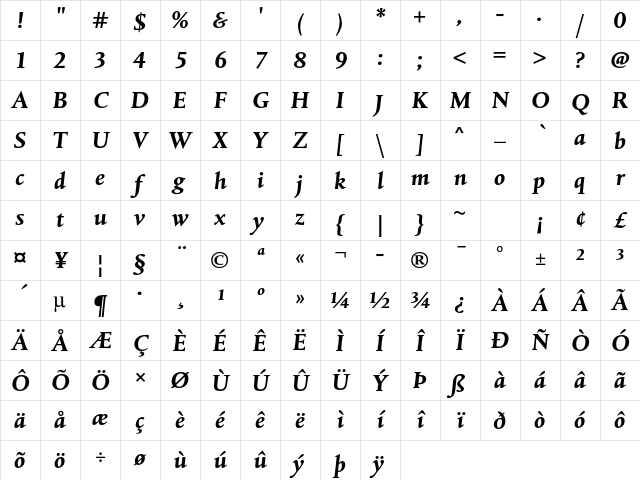
Albertina MT Std Bold Italic
Foundry: Agfa Monotype Corporation
Design Context for Albertina MT Std
Albertina MT Std is a composed and adaptable typeface that performs quietly and consistently across a wide range of design contexts. The slanted form adds forward momentum and visual energy. Its bold stroke weight gives it real presence on the page.